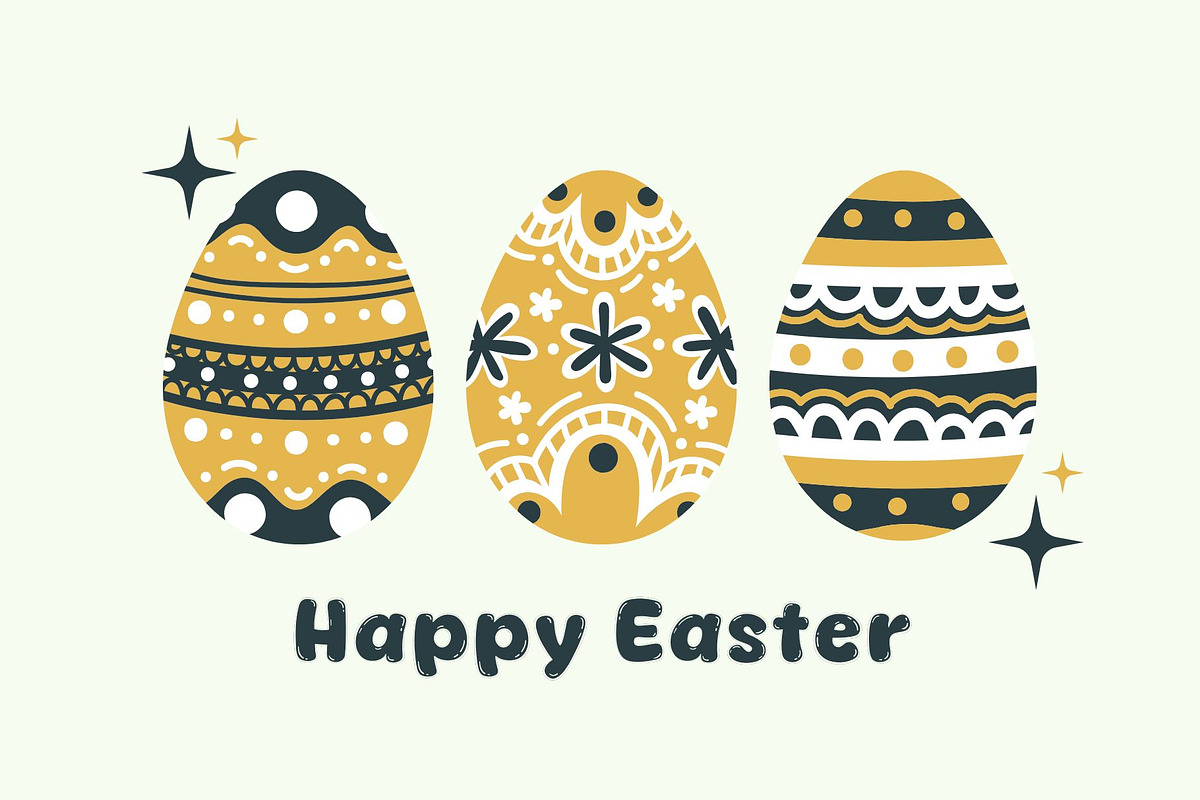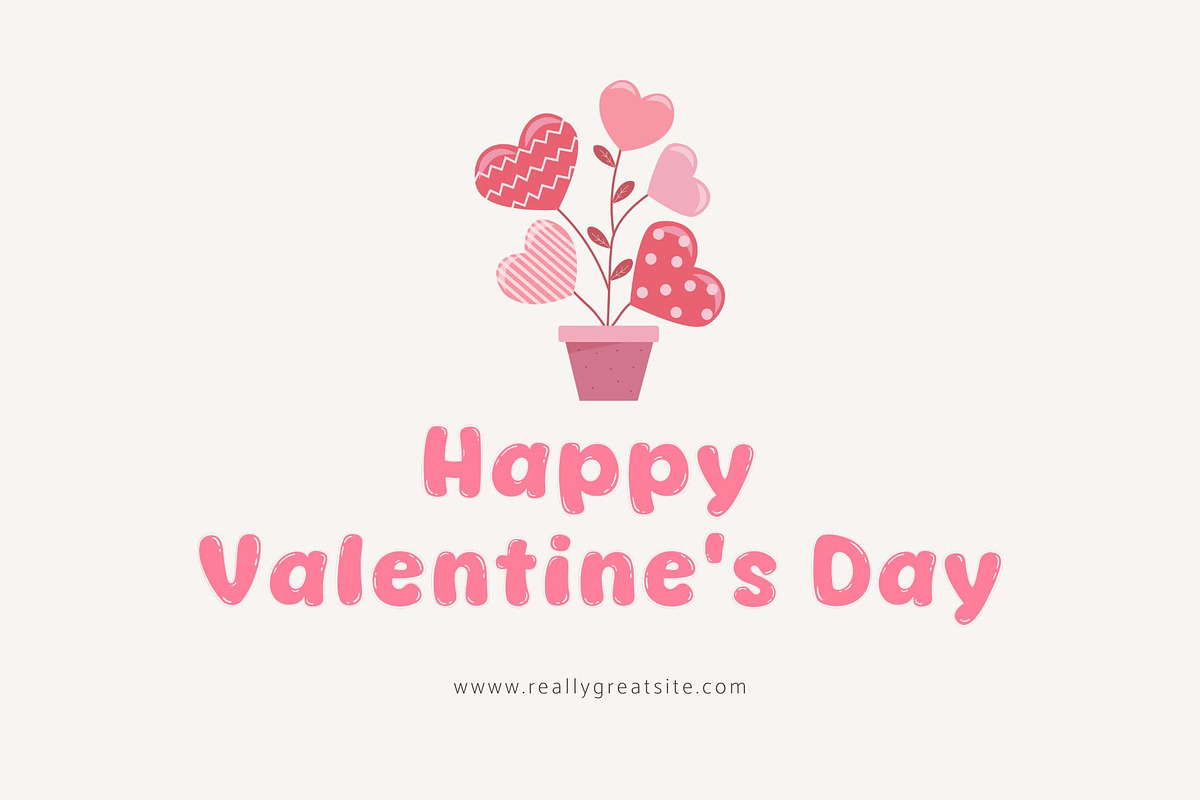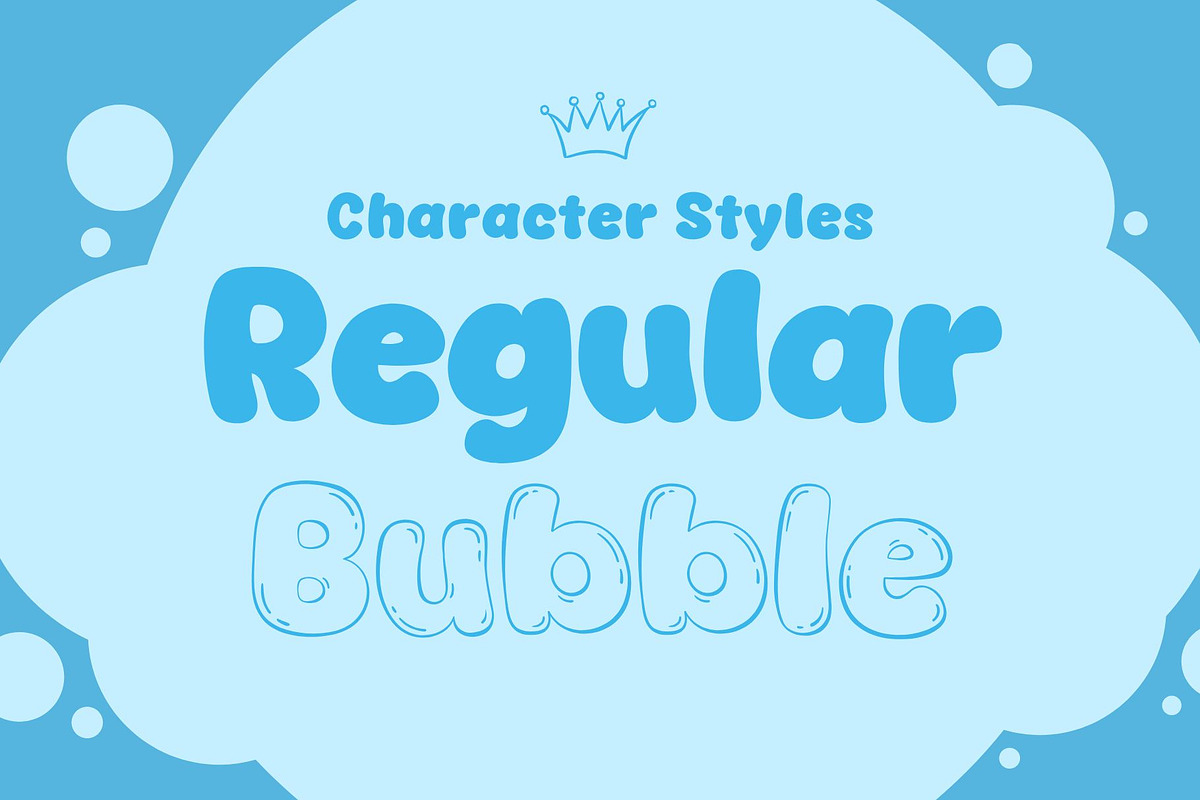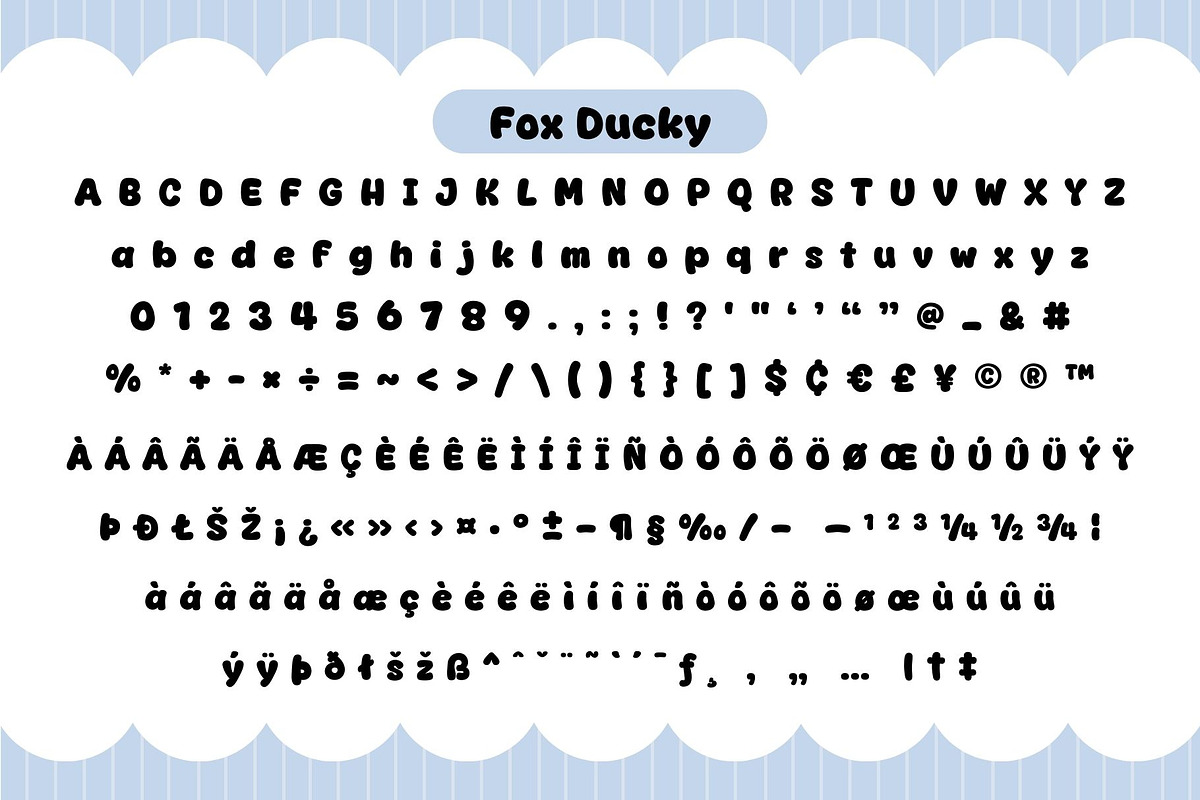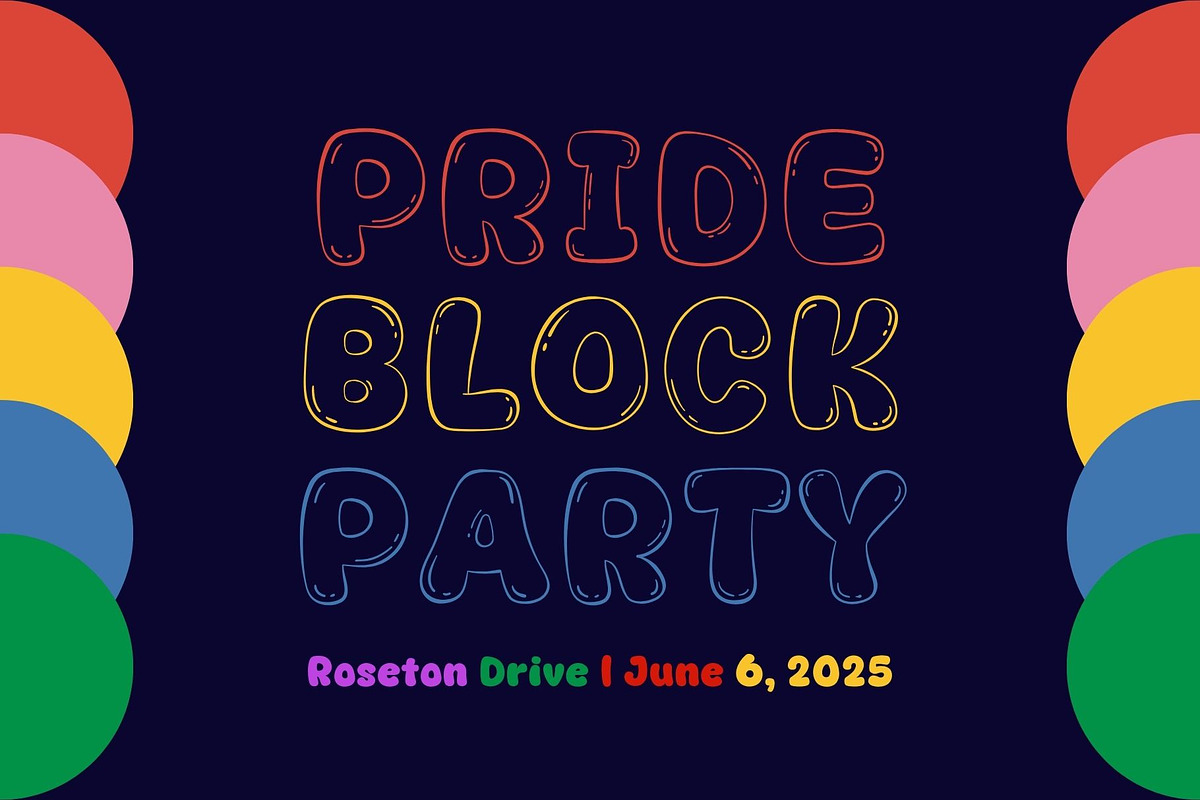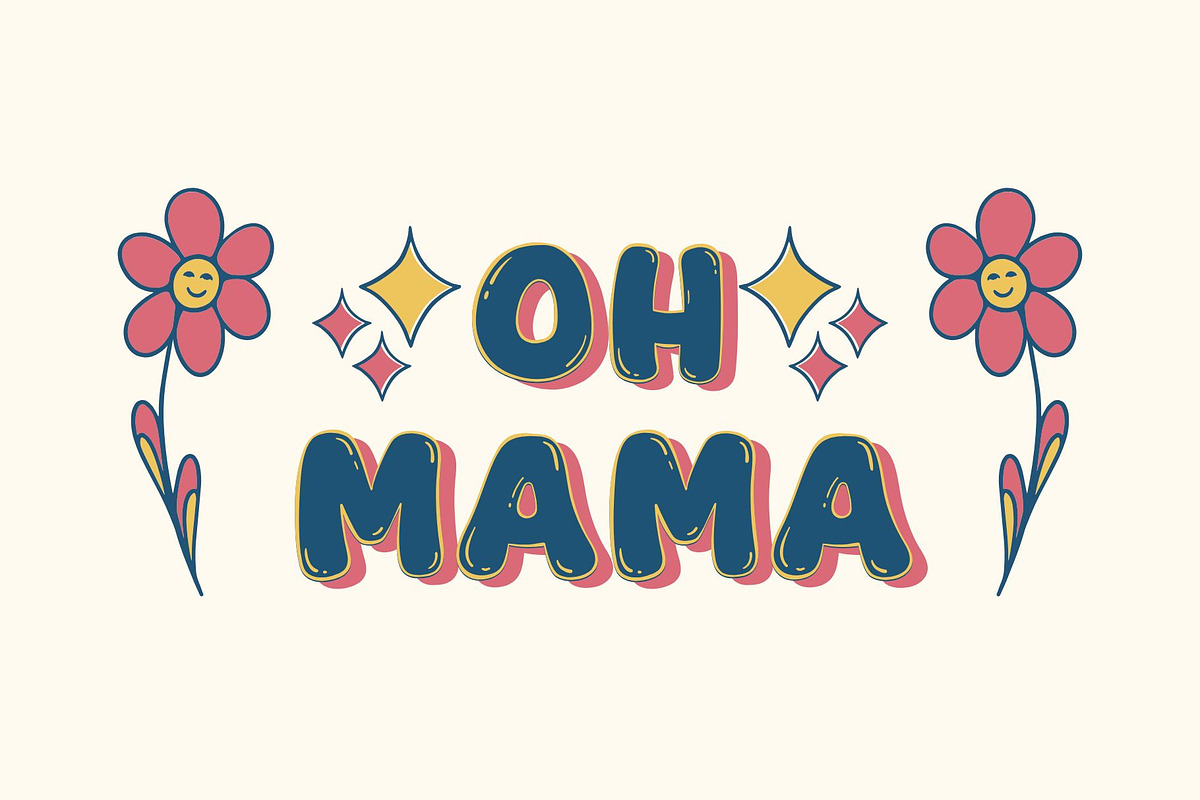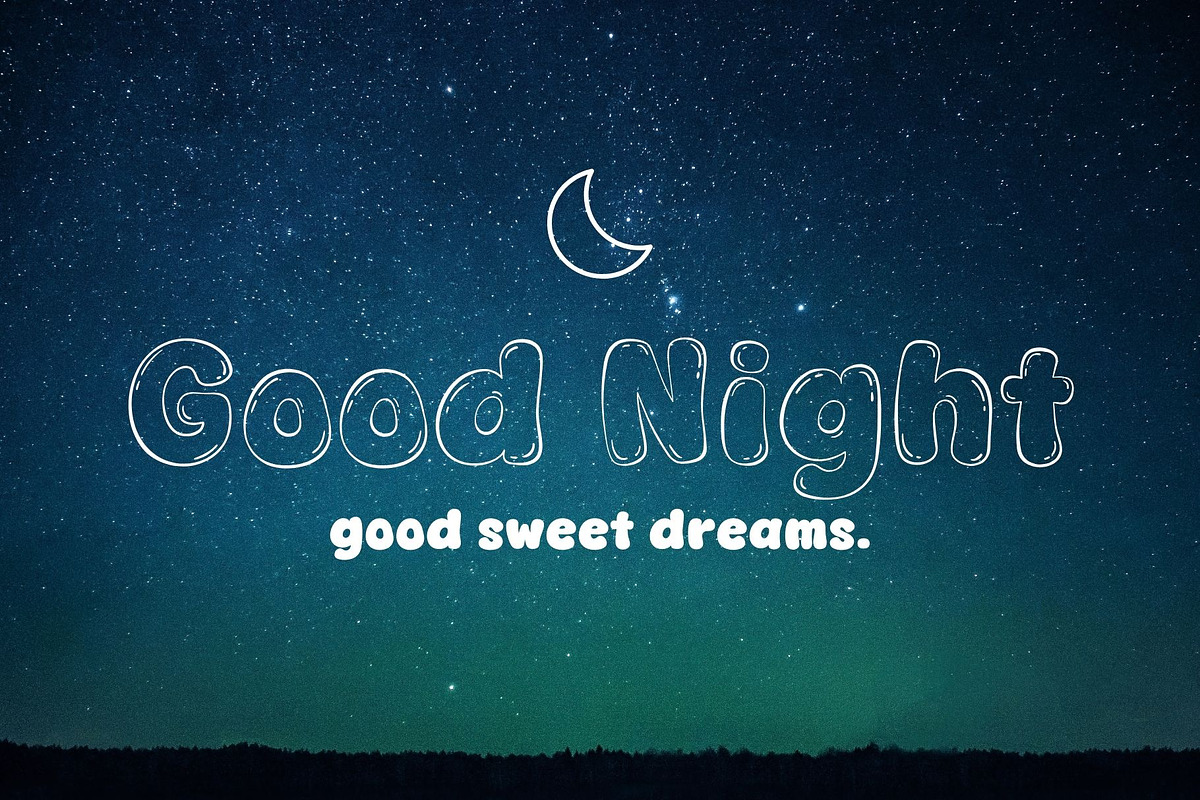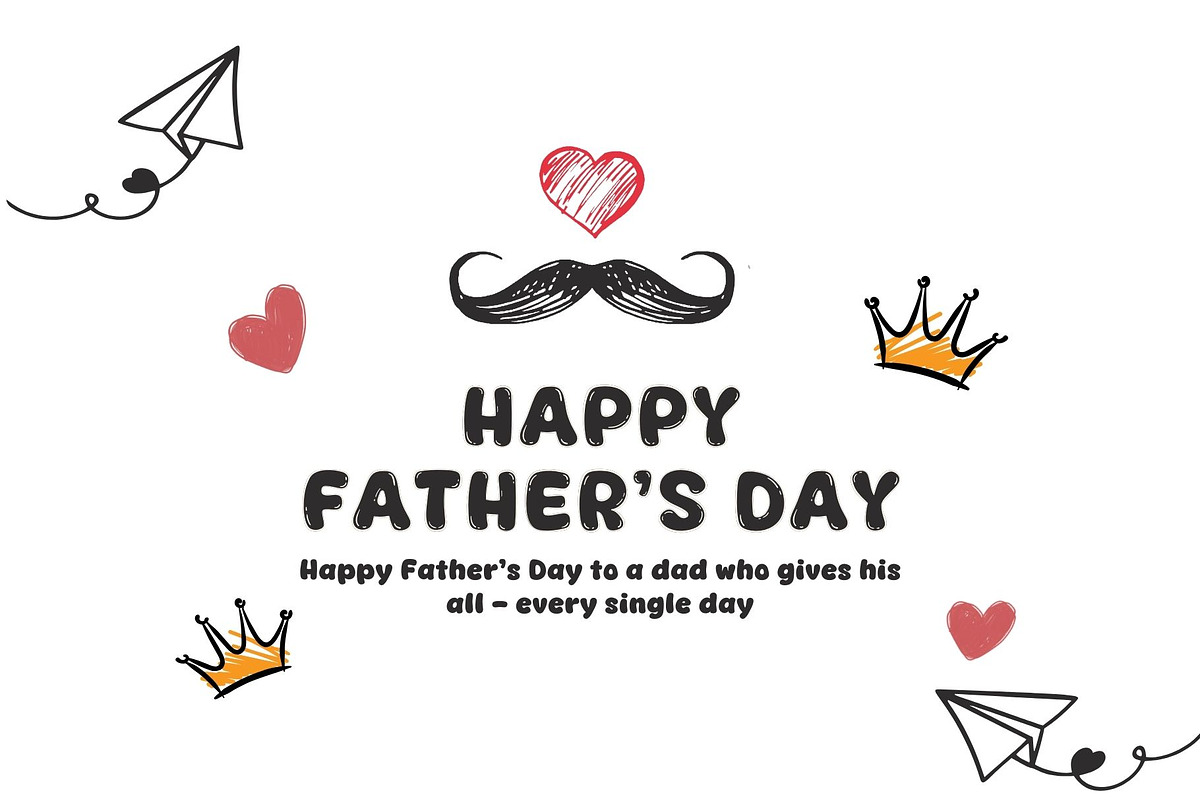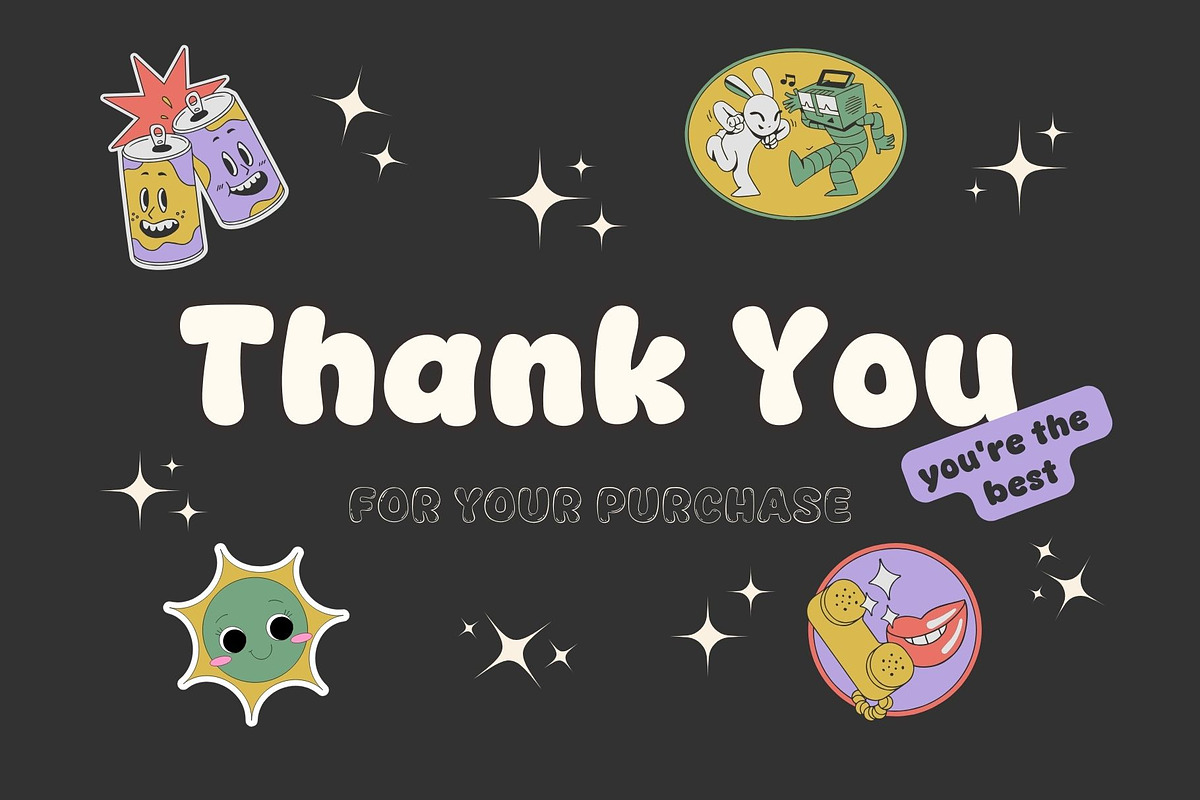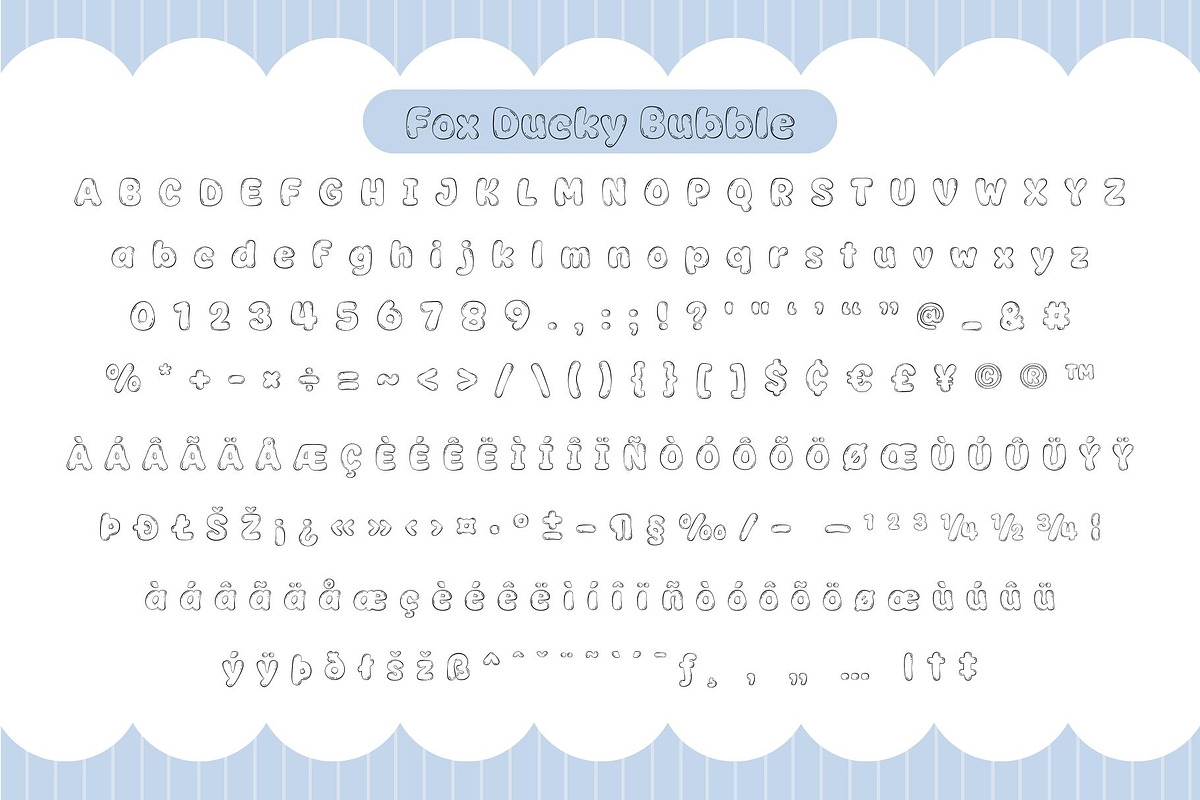
Fox Ducky Font Duo
Fox Ducky is a cheerful and charming font duo that brings a burst of personality to your designs!
Ideal for greeting cards, children’s books, posters, party invitations, and branding that needs a fun, friendly vibe. With both Regular and Bubble styles, Fox Ducky gives you creative flexibility while keeping things super cute and approachable.
Let your words come alive with Fox Ducky – where creativity meets color and fun!